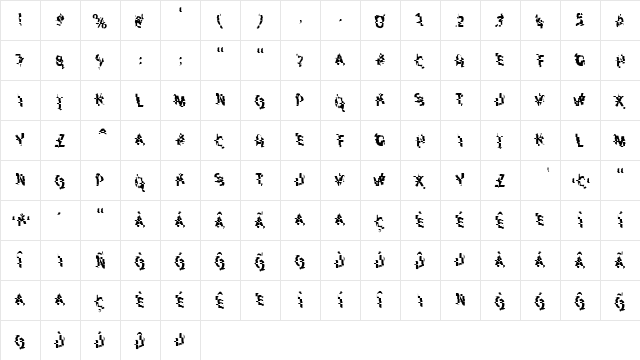
Decline Regular
Design Context for Decline Typeface
Decline is a composed and adaptable typeface that performs quietly and consistently across a wide range of design contexts.